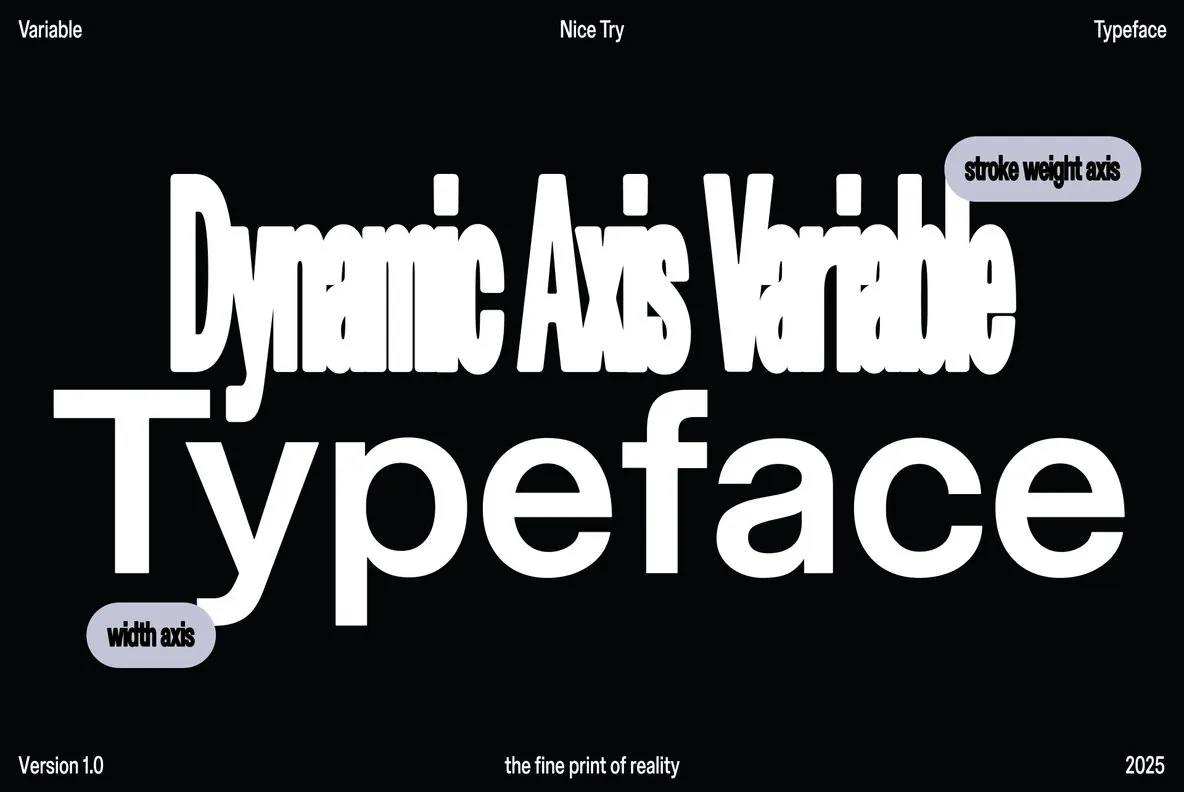
Nice Try: A Variable Typeface with Dynamic Fluidity
Nice Try is a variable typeface defined by two dynamic axes that allow precise control over both width and weight. It spans from tightly condensed forms to open, highly legible structures, challenging traditional notions of stroke thickness and typographic rigidity.
This typeface resists a fixed identity, continually shifting between contrasting appearances with effortless fluidity. Its design embodies movement and flexibility, making it suited for projects requiring a balance of grounded structure and dynamic expression. Nice Try navigates the space between stability and unpredictability, offering a typography solution that is never static.
Features:
Variable Width and Weight
– Controlled axes for stroke thickness and form expansion.
Responsive Design
– Transitions smoothly between tight and open letterforms.
Multilingual Support
– Covers extensive Latin-based languages including English, German, French, Spanish, Portuguese, Italian, and more.
Modern Aesthetic
– Combines traditional readability with a contemporary, fluid character.
Designed for use where typographic nuance matters, Nice Try invites designers to explore a spectrum of expressions within a single font family. Its capacity to shift between rigid and flowing forms unlocks innovative ways to communicate visually without compromising clarity.